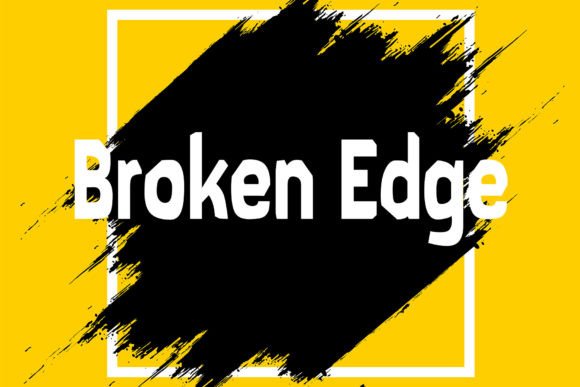
The Quest for the Perfect Font: How Broken Edge Stole the Show
I’ll never forget the frustration of working on a design project, hours spent searching for that one font that would bring it all together. My client wanted something modern, cool, and eye-catching – and I was determined to deliver. That’s when I stumbled upon Broken Edge, a display font that would change the game. In this article, I’ll share my experience with Broken Edge, its features, and how to make the most of it in your designs.
First Impressions: A Love Affair with Broken Edge
Broken Edge is indeed a modern and cool display font that instantly elevates any project. Its unique style and versatility make it perfect for designers, crafters, and creative hobbyists looking to add a touch of personality to their work.
What I Love About Broken Edge ✨
- ✅ Unique and Memorable: Broken Edge stands out from the crowd with its distinctive, edgy design that captures attention.
- ✅ Highly Versatile: Whether you’re working on a logo, a poster, or a digital project, Broken Edge adapts seamlessly.
- ✅ Easily Readable: Despite its edgy look, the font remains surprisingly readable, even at smaller sizes.
- ✅ OpenType Features: Broken Edge supports OpenType features, allowing for a range of stylistic alternates and glyphs to enhance your designs.
- ⚠️ Limited Use Cases: While Broken Edge is amazing for headlines and display text, it might not be the best choice for body text due to its bold nature.
- ⚠️ Requires Design Know-how: To truly leverage Broken Edge’s capabilities, some knowledge of typography and design principles is beneficial.
If you’re looking for fonts similar to Broken Edge, consider these alternatives:
- Graffiti: A street-style font with a raw, urban feel. Use it for bold statements and graffiti-inspired designs.
- Constructa: A geometric, modern font with clean lines. Ideal for architectural and tech-related projects.
- Razed: A distressed font with a rugged look. Perfect for bold headlines and attention-grabbing text.
- Fracture: A broken, stencil-like font. Great for military, industrial, or avant-garde designs.
Broken Edge was created with the modern designer in mind. Its designer sought to craft a font that embodies the cutting-edge spirit of contemporary design while maintaining readability. Inspired by urban landscapes and digital interfaces, Broken Edge brings a fresh perspective to the world of typography.
Q: What makes Broken Edge unique?
A: Broken Edge stands out with its modern, edgy design and versatility, making it suitable for a wide range of design projects.
Q: Is Broken Edge suitable for body text?
A: While Broken Edge is primarily designed for display text, it’s not ideal for body text due to its bold nature. For readability, consider using a complementary font for longer text blocks.
Q: Does Broken Edge support OpenType features?
A: Yes, Broken Edge supports OpenType features, allowing you to access a range of stylistic alternates and glyphs to enhance your designs.